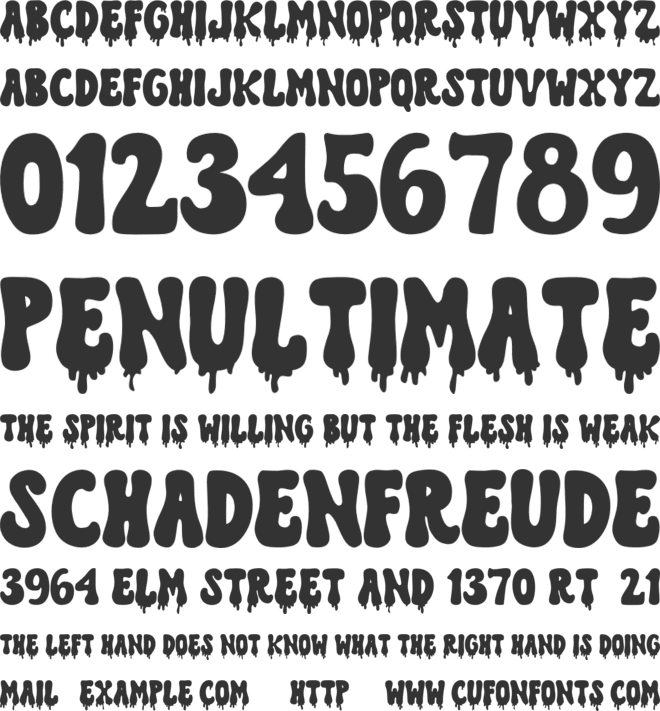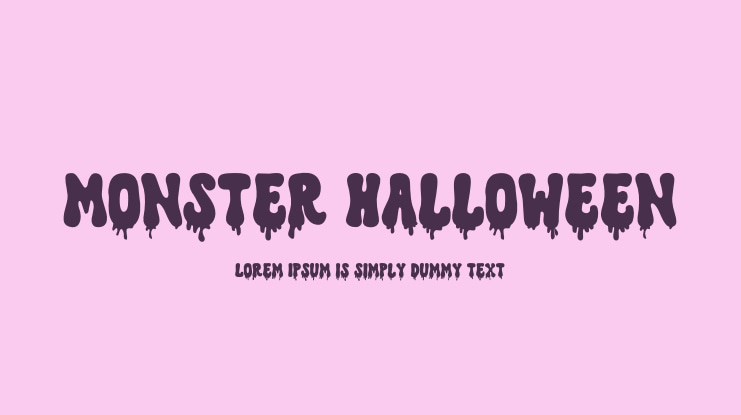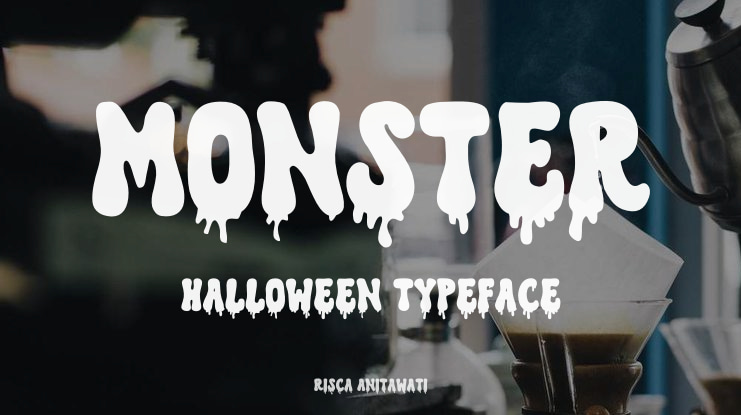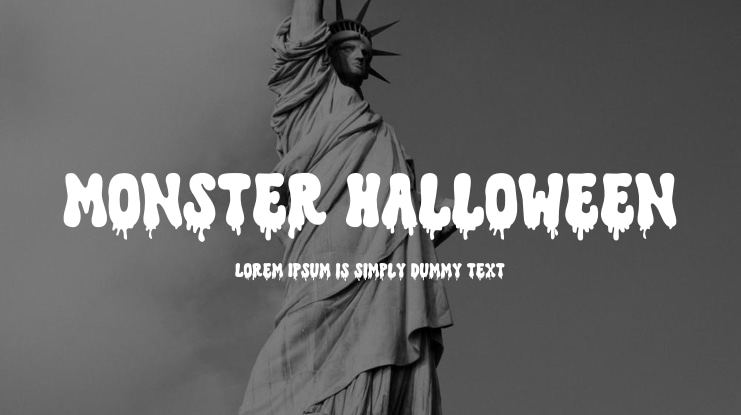
Monster Halloween Font
Introducing Monster Halloween! This fun and spooky Halloween font boasts a dripping style that's perfect for logos, headlines, signage, and various formal uses such as invitations, labels, magazines, book covers, greeting/wedding cards, packaging, fashion, makeup, stationery, novels, or any advertising purpose. This product is designed to help you enhance your digital images, making them even more beautiful and unique.
Monster Halloween was created by ReyreyBlue Std